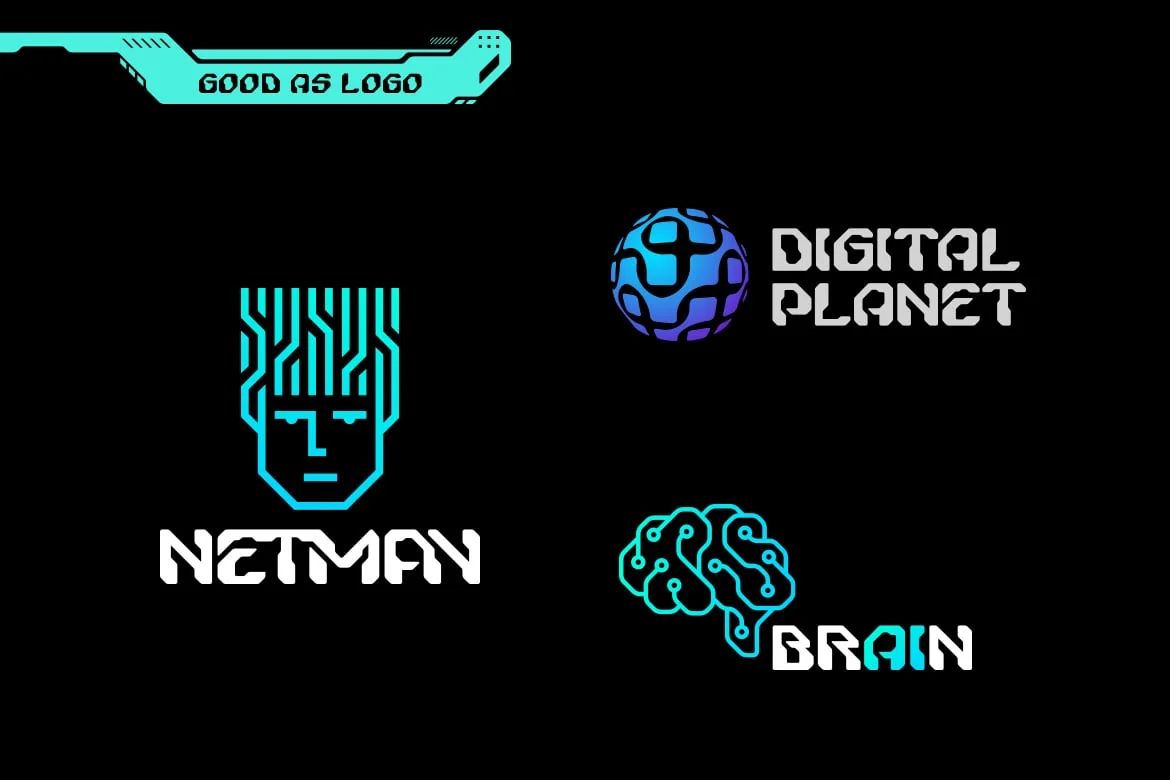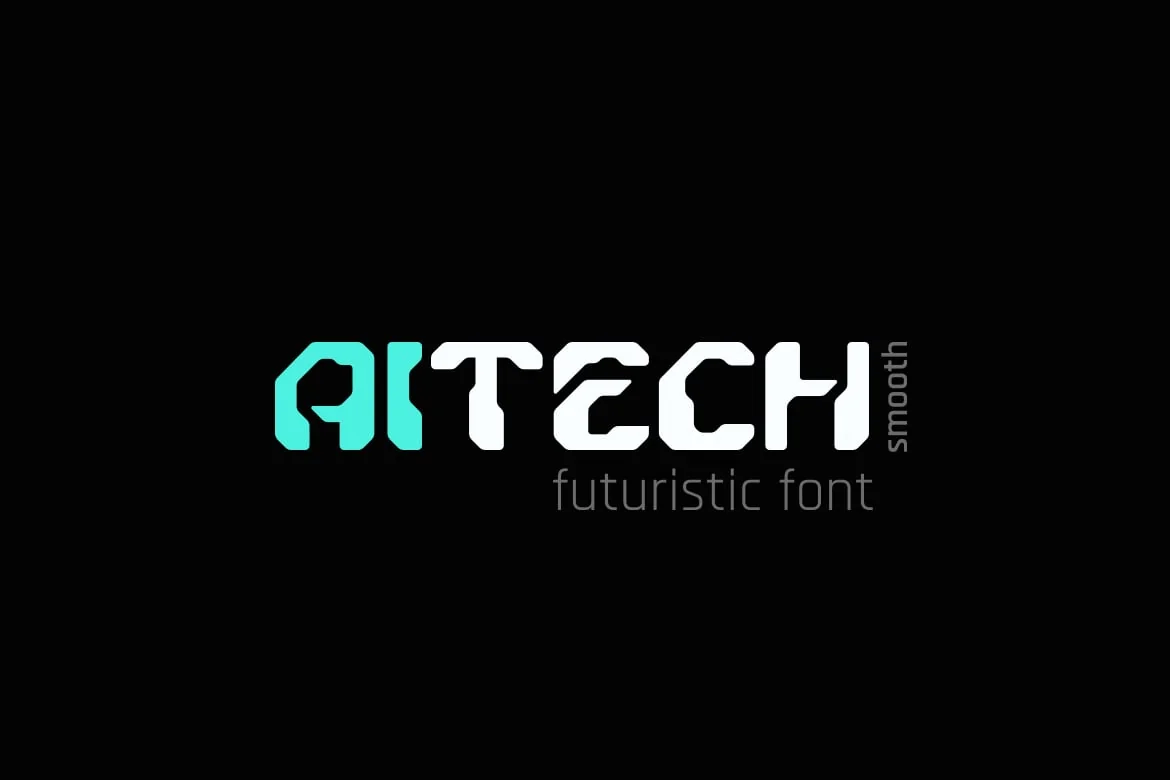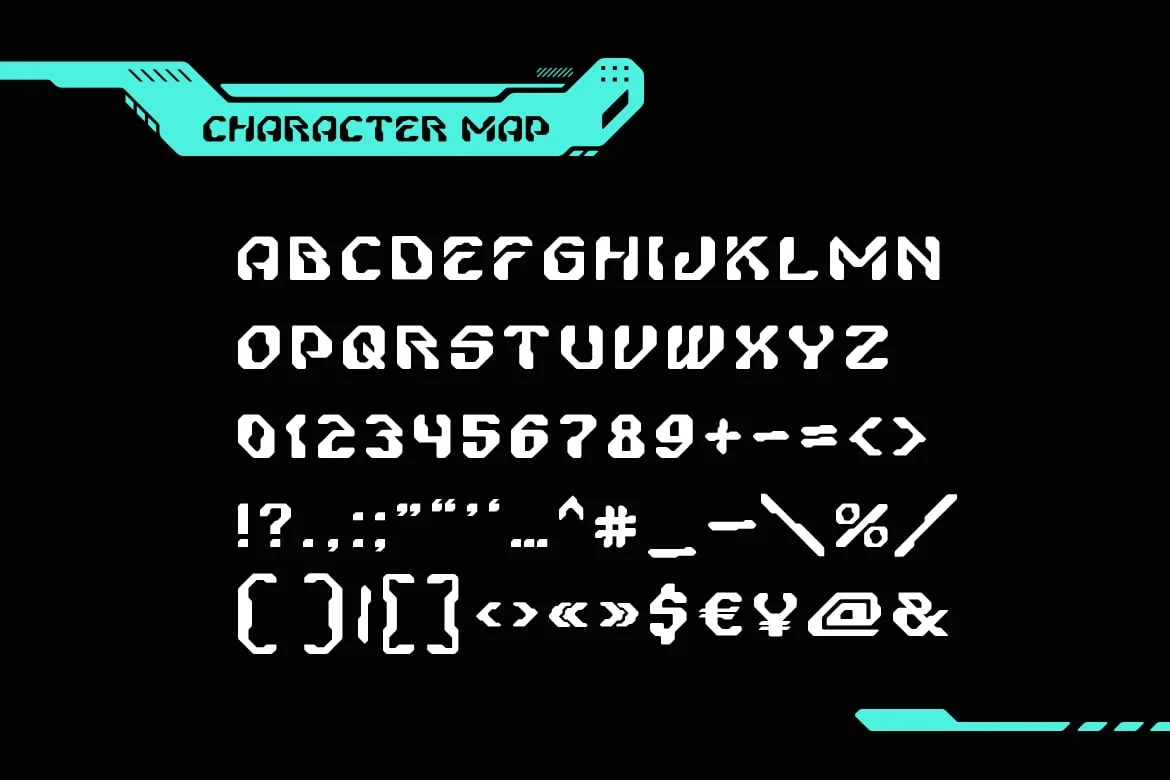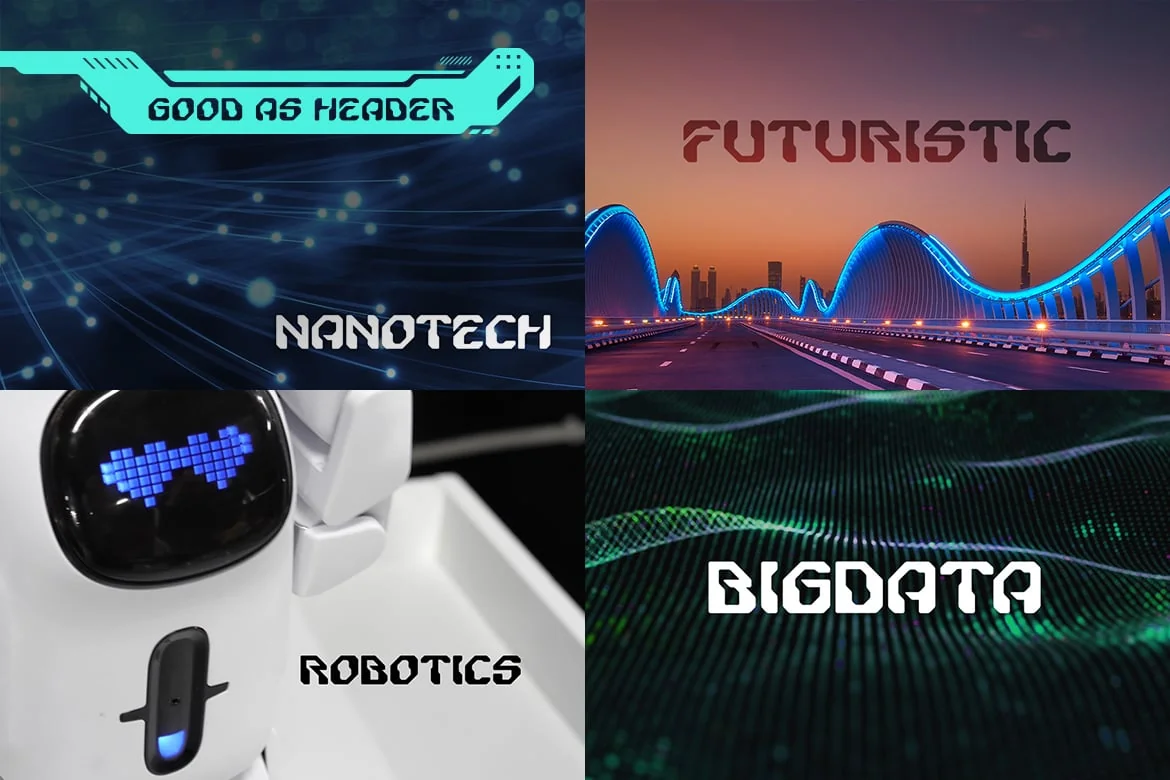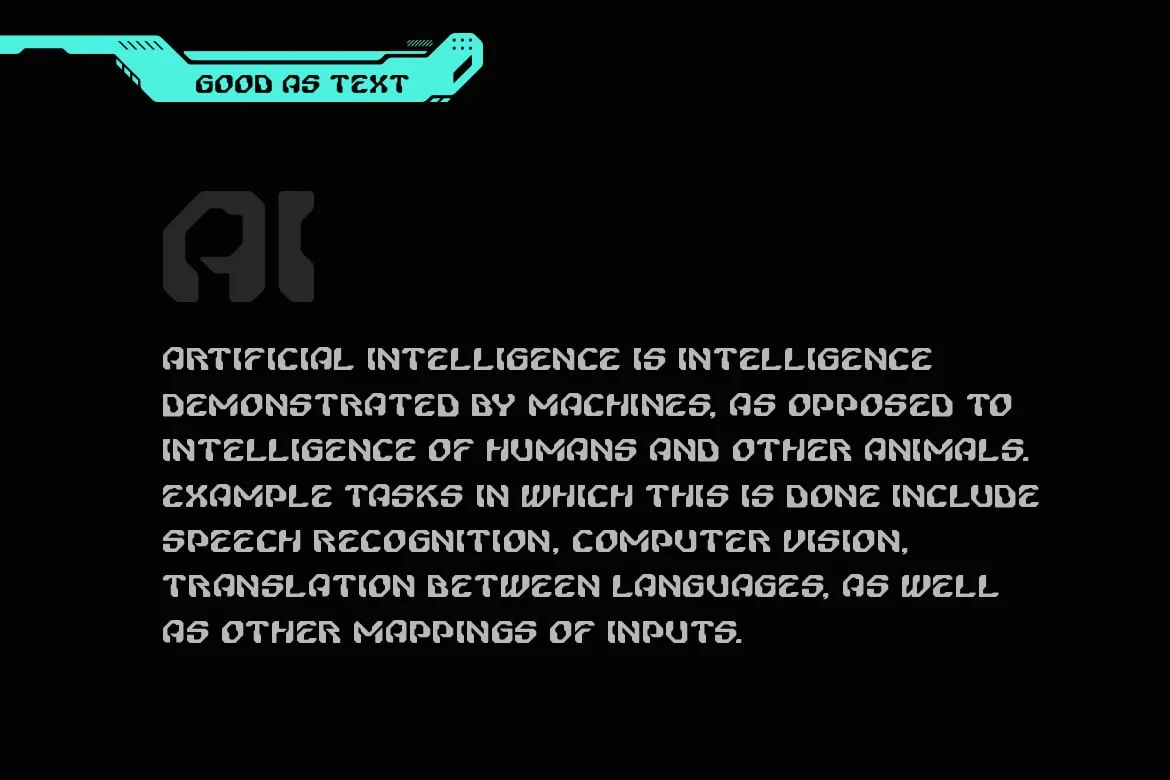
AiTech Smooth Font
AiTech Smooth is font which helping to create hi-tech cyberpunk atmosphere and style.
It is good looking as header and as text both.
Use it in your projects in such areas as robots&androids, cyberpunk, hi-tech, future, virtual reality, space, army, games and many others.